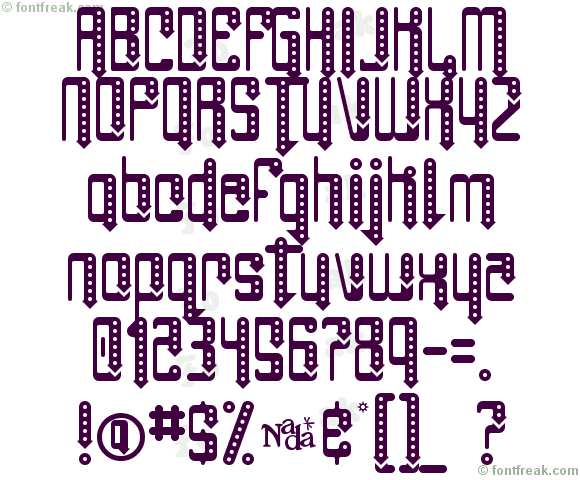
Angie Pierced
About Angie Pierced
Angie Pierced, designed by Greywolf Webworks in 1999, is a striking display font that falls within the decorative category. Characterized by its unique pierced letterforms, this font features bold strokes with a playful contrast that captures attention. The letters are adorned with small holes and pointed decorations, which give them a distinctive and edgy appearance. The overall spacing is balanced, allowing for legibility while maintaining a bold visual impact that makes it suitable for various applications.
This font is perfect for a range of creative projects. Its playful and unconventional style makes it an excellent choice for movie posters that aim to evoke a sense of adventure or intrigue. Additionally, it can elevate the design of restaurant menus, particularly for establishments that wish to convey a trendy or modern vibe. Wedding invitations can also benefit from the Angie Pierced font, as its unique characteristics can add a touch of personality and flair to the celebration. Graphic designers seeking to make a statement in branding or promotional materials will find this font particularly valuable for its eye-catching aesthetic.
What sets the Angie Pierced font apart is its ability to blend fun and sophistication while maintaining a strong visual identity. Its unique design elements make it a memorable choice for anyone looking to convey creativity and originality in their projects. This font not only enhances the aesthetic appeal but also invites curiosity, making it a standout addition to any typographic collection.